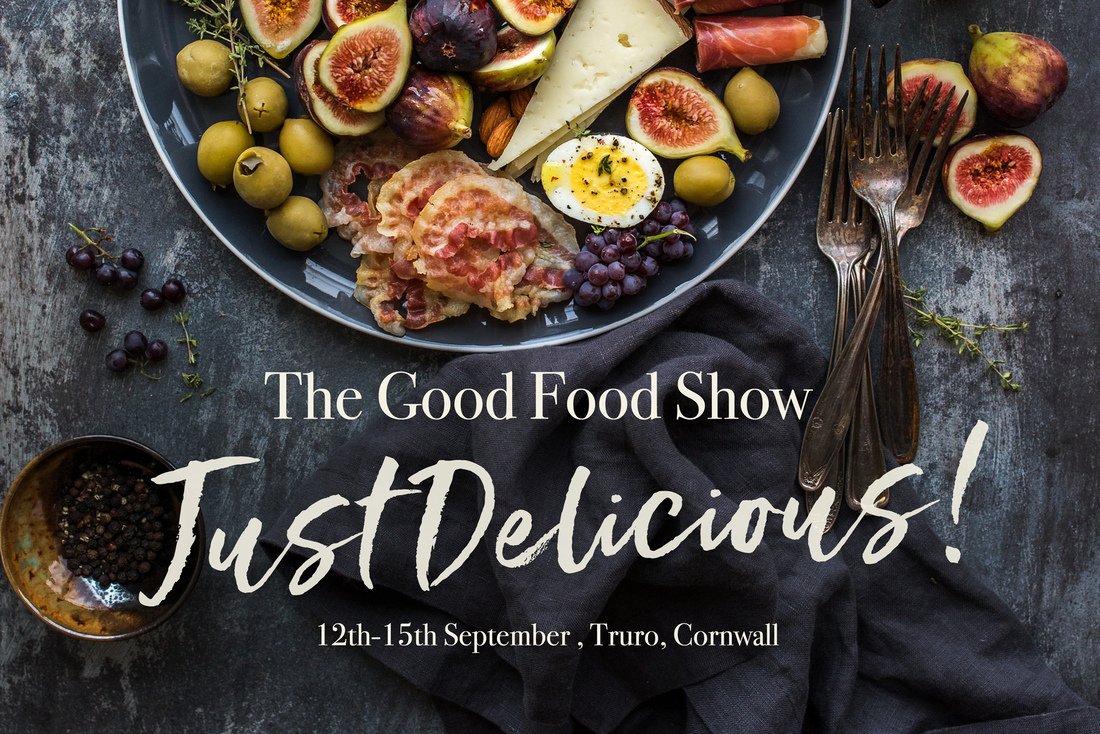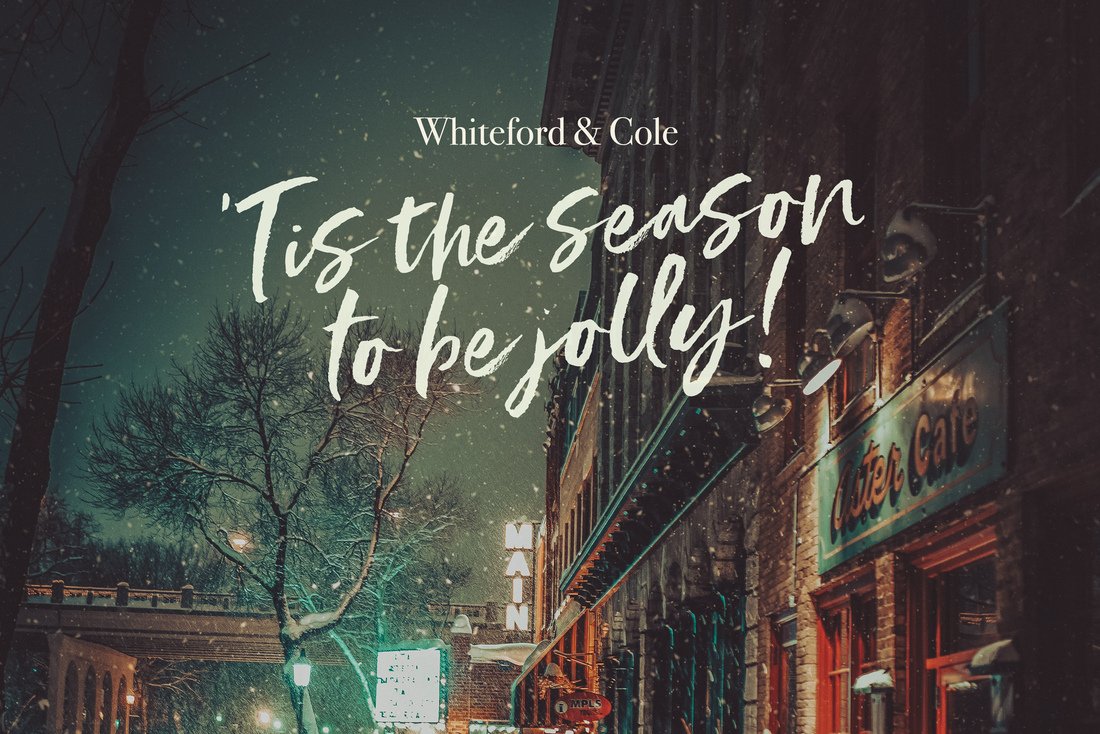
Styled Up Brush Font
Are you looking for a font that says "I'm unique"? Say hello to Styled up! A new authentic hand-brushed, modern calligraphy font with a stylish flair and a quirky personality.
Styled up has built-in OpenType features with 2 sets of extra alternate lowercase letter, an extra set of Uppercase alternate letters and a comprehensive set of double letter ligatures to make your designs look even more naturally written.
Styled up! is perfect for any project needing a unique bold yet feminine hand lettered touch - branding, greeting cards, logos, websites, wedding signage, printables, and super stylish merch.